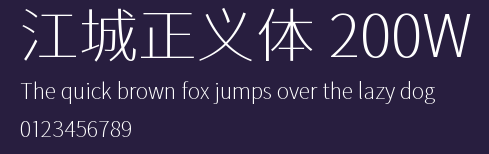
• Font Name: 江城正义体 200W
• Font ID: JiangChengZhengYiTi 200W:Version 3.0
• Full Font Name: 江城正义体 200W
• Version: Version 3.0
• PostScript Name: JiangChengZhengYiTi-200W
• Character Count: 30786
• Designer: 刘鹏
About 江城正义体 200W.ttf
江城正义体 200W.ttf is a modern, elegant sans-serif font designed for ultimate readability and visual harmony. Perfect for branding, headlines, web design, and print materials.